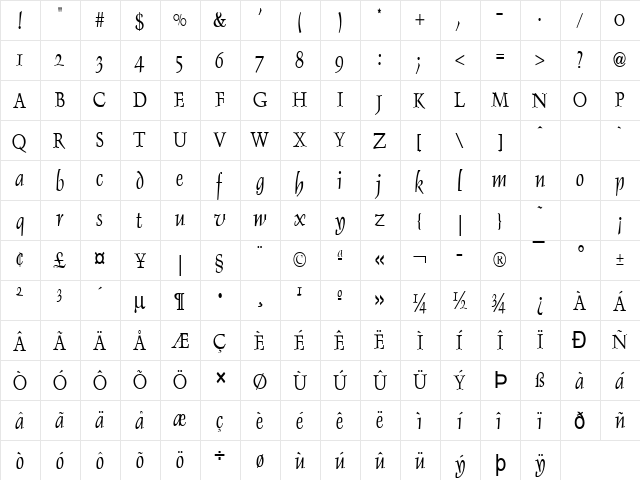
Dolphin-Condensed Normal
Design Context for Dolphin-Condensed Typeface
Dolphin-Condensed takes a measured approach to typography — its balanced proportions and neutral character make it a reliable workhorse for both digital and print work. The condensed width makes it efficient for tight spaces without sacrificing legibility.